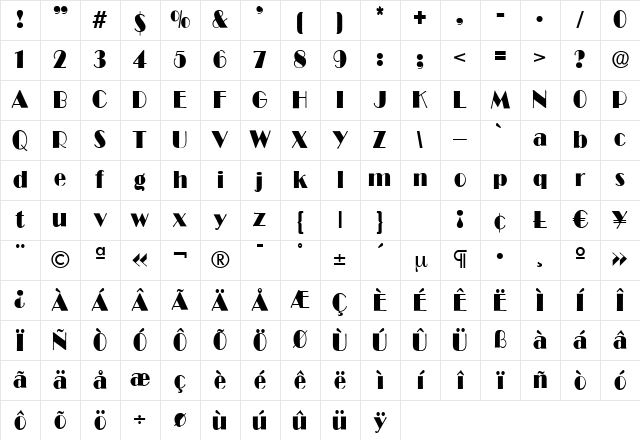
Complete B821-Deco Regular glyph index. Displaying only characters natively supported by B821-Deco Regular font.
B821-Deco is a composed and adaptable typeface that performs quietly and consistently across a wide range of design contexts.
Who designed the B821-Deco Regular font?